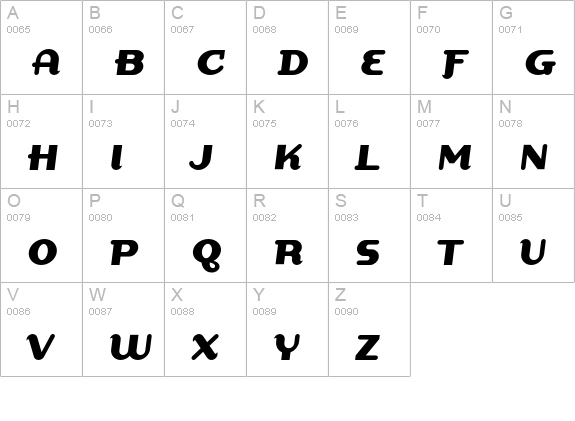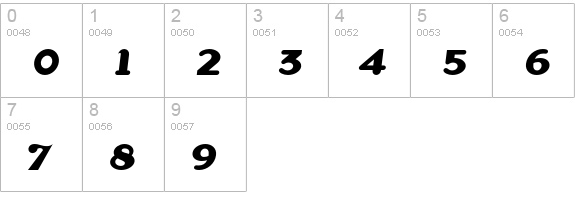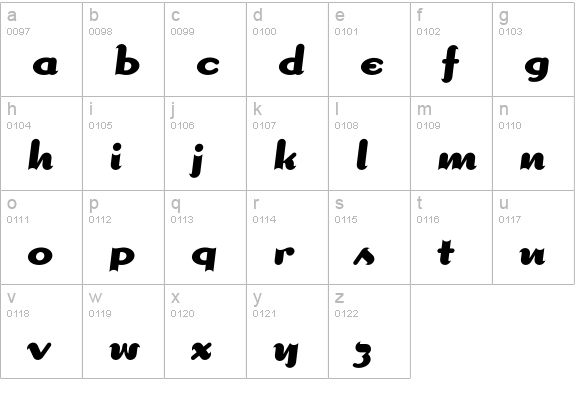
DogmaScriptBold Font Details
DogmaScriptBold is a versatile and modern font that exudes confidence and sophistication. With its bold, strong lines and elegant curves, this font commands attention and adds a touch of boldness to any design project. Perfect for headlines, logos, and branding materials, DogmaScriptBold brings a unique flair to your typography. And the best part? DogmaScriptBold is available for free download at FontsMarket.com! So go ahead and elevate your designs with this stylish and impressive font today.